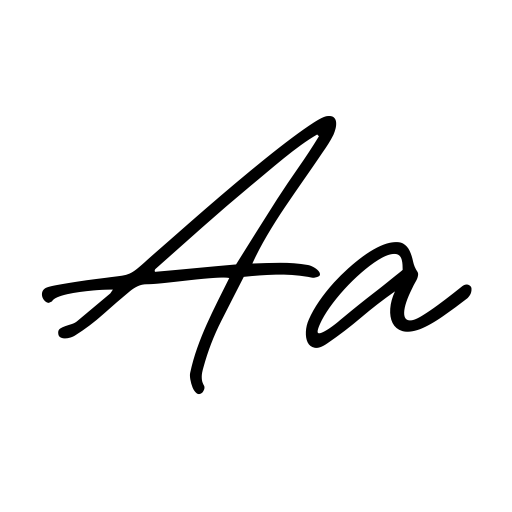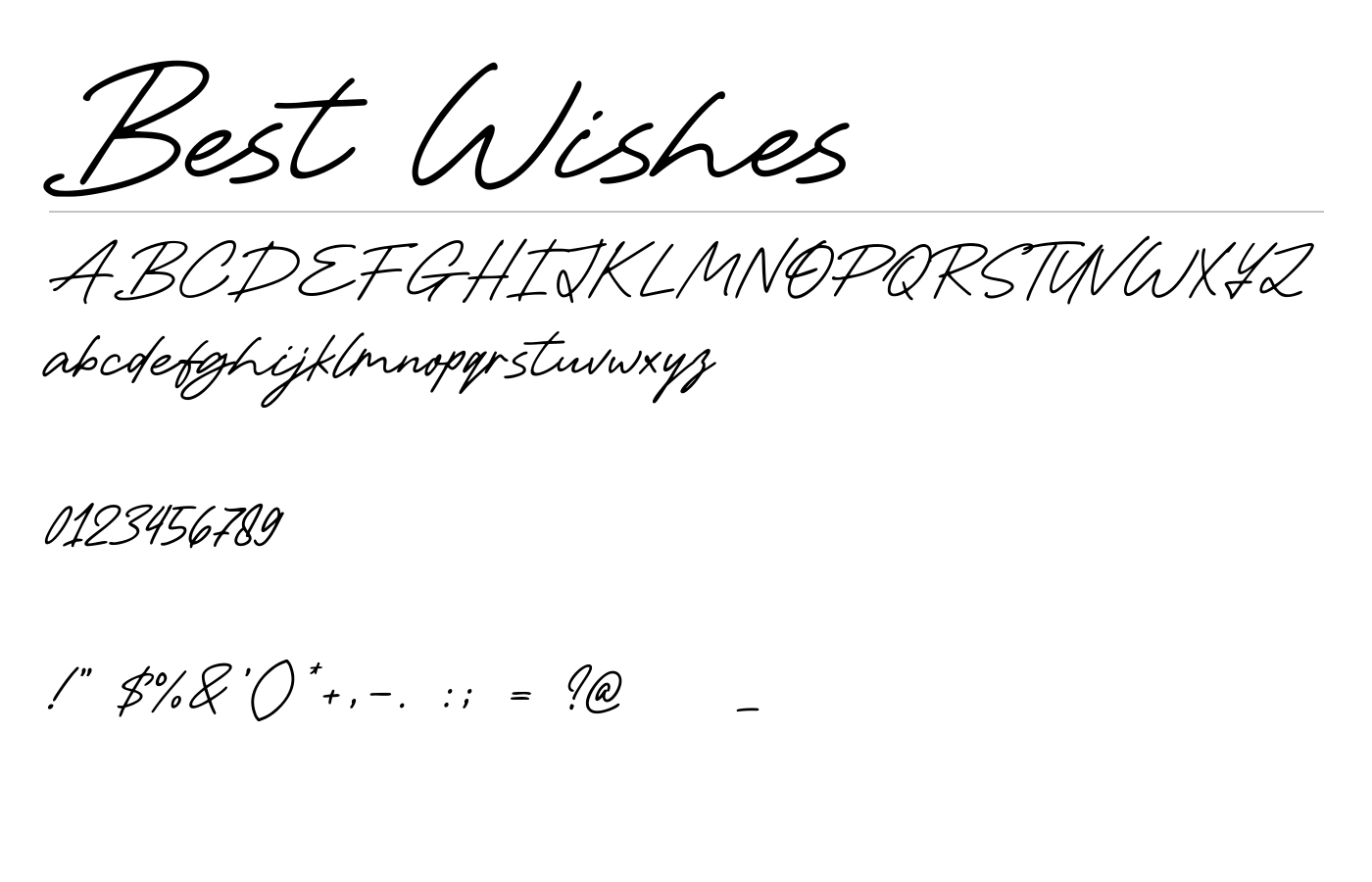
Best Wishes Font is a light, elegant script typeface that mimics natural handwriting with a smooth, flowing style. Its thin, delicate strokes and slightly slanted letterforms convey a personal, sophisticated feel, making it perfect for invitations, greeting cards, and branding that seeks a warm, friendly touch. This font works wonderfully in designs where a graceful, intimate aesthetic is desired, adding charm without overpowering the content.
Best Wishes Font
About Best Wishes Font
| Font family | Best Wishes Font |